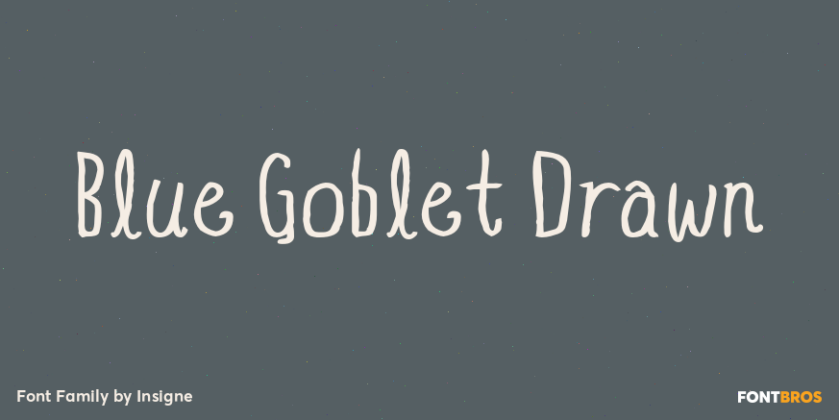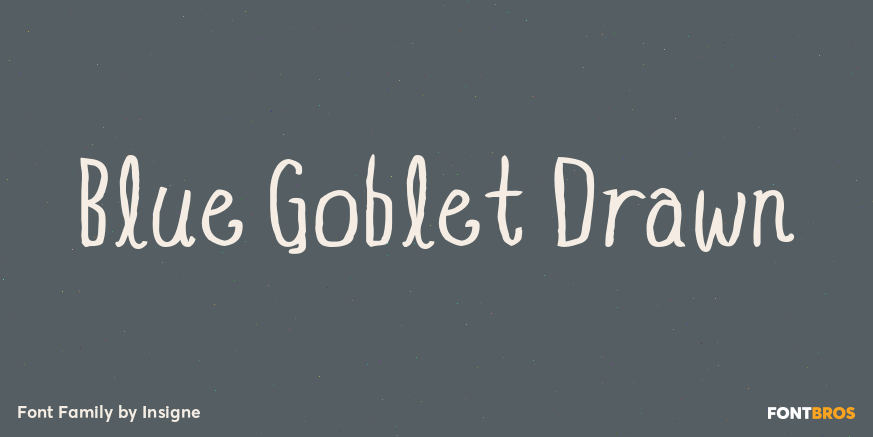
Blue Goblet Drawn
About Blue Goblet Drawn
This best selling series has now been extended to include a new member, Blue Goblet Drawn. Blue Goblet is hand-drawn by the artist, Cory Godbey, and is organic, charming and exuberant. Characters bounce and dance above and below the baseline and x-height,…